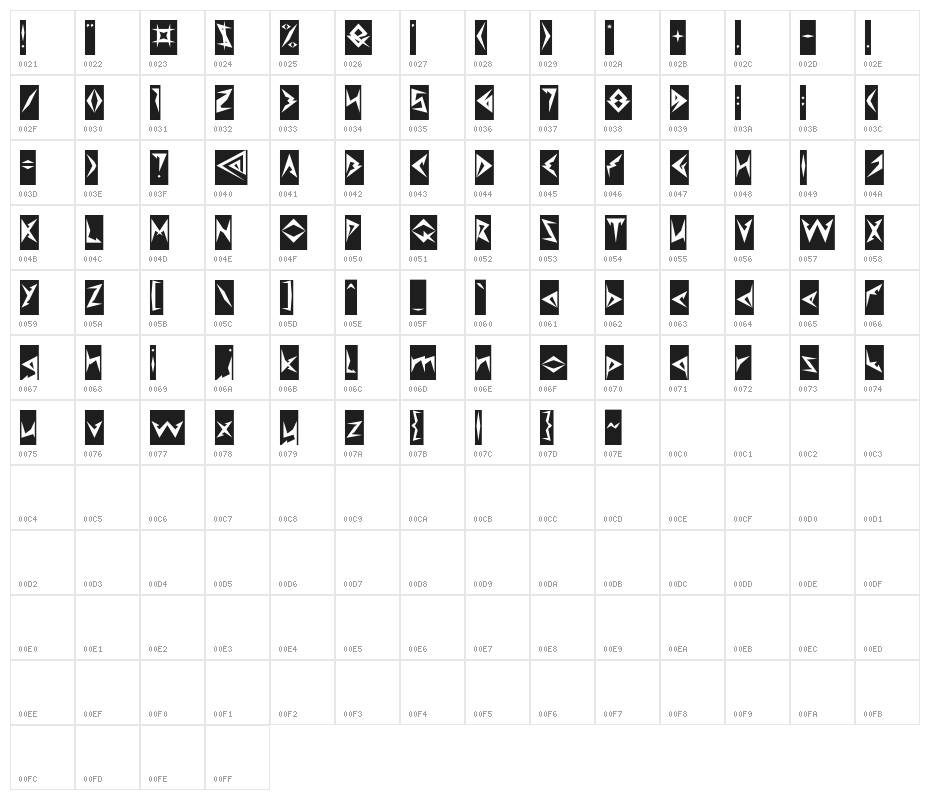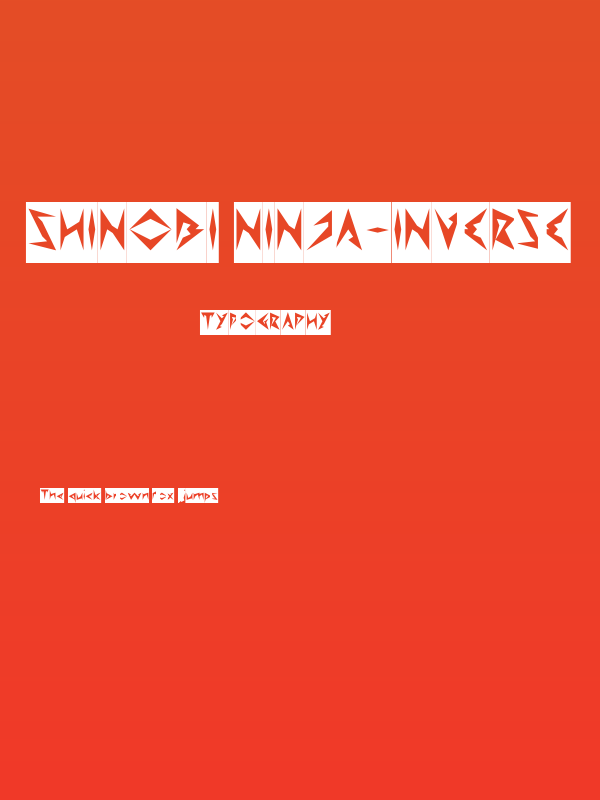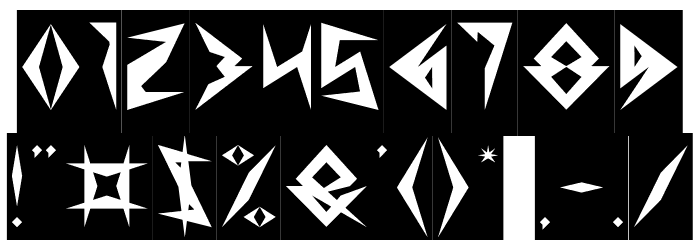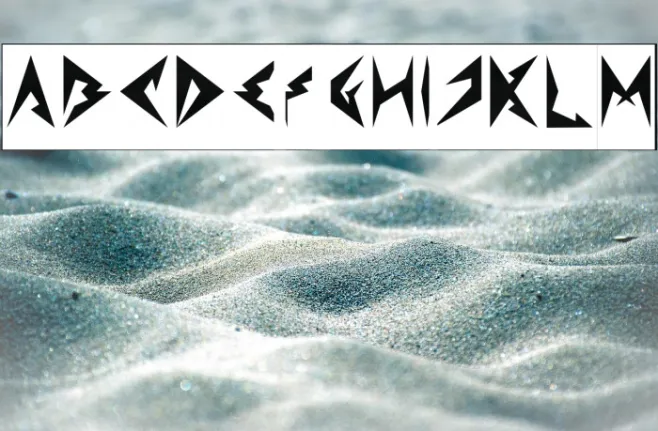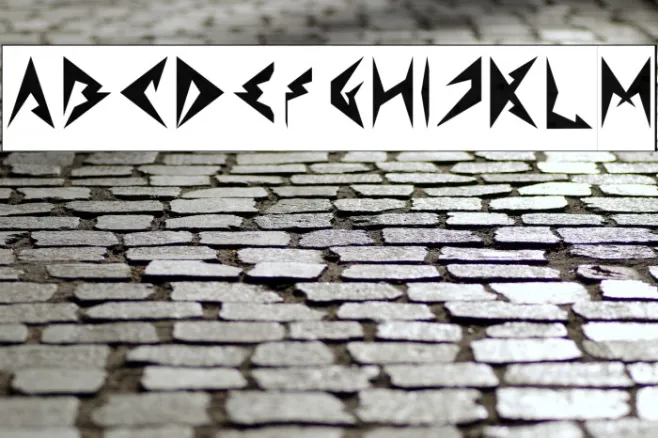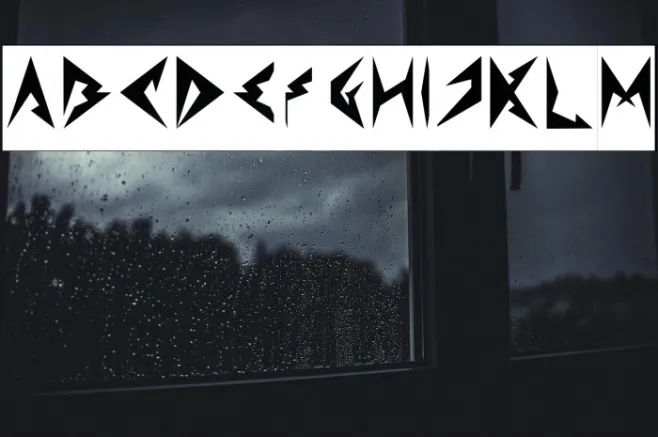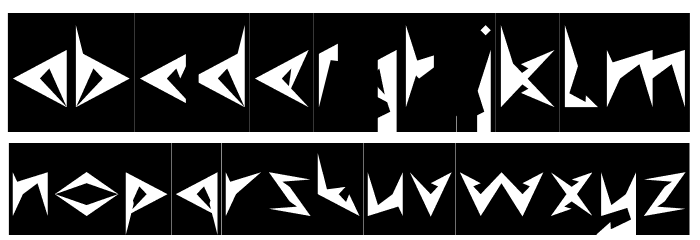
Shinobi Ninja-Inverse Font
Shinobi Ninja-Inverse Description
This font features a striking and angular design, reminiscent of sharp blades or ninja stars, giving it a distinctly edgy and dynamic appearance. Each character is crafted with bold, geometric shapes that create a sense of movement and energy. The uppercase and lowercase letters maintain a consistent style, with sharp points and dramatic angles that evoke a sense of stealth and precision. The numerals and special characters follow the same design principles, ensuring a cohesive look across all glyphs. This font's unique style makes it ideal for projects that require a bold and unconventional aesthetic.
| Overall Style | Modern, Edgy |
| Proposed Projects | Perfect for video game titles, action movie posters, or any project needing a bold, dynamic look. |